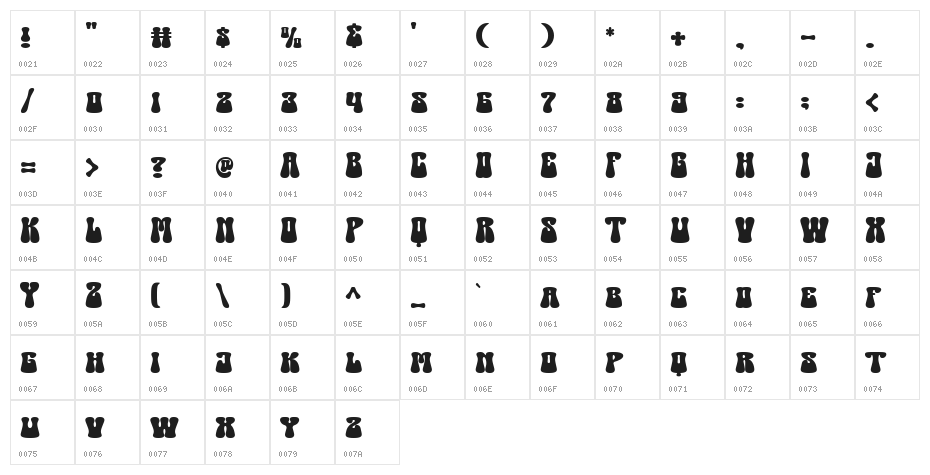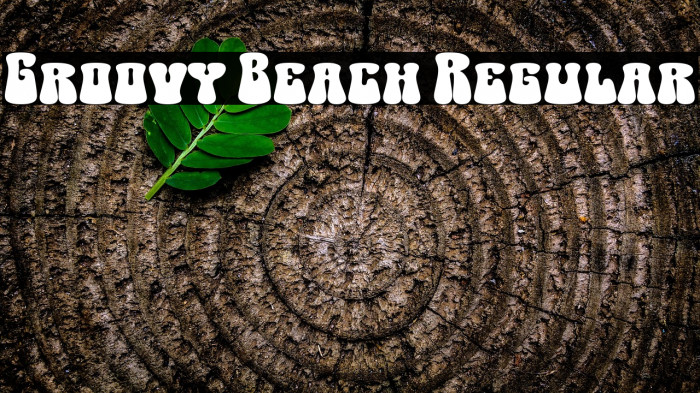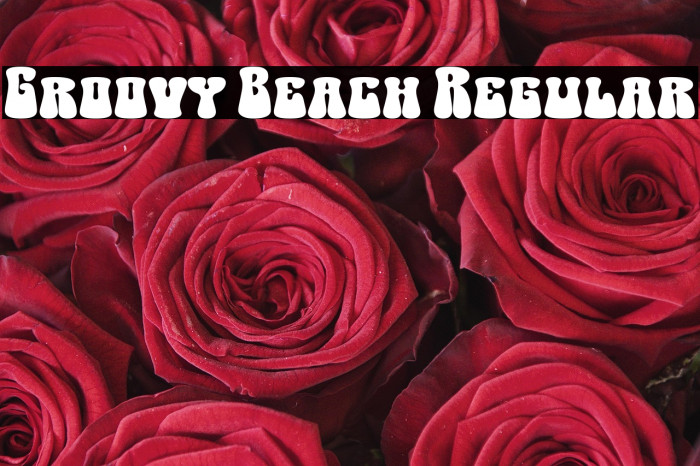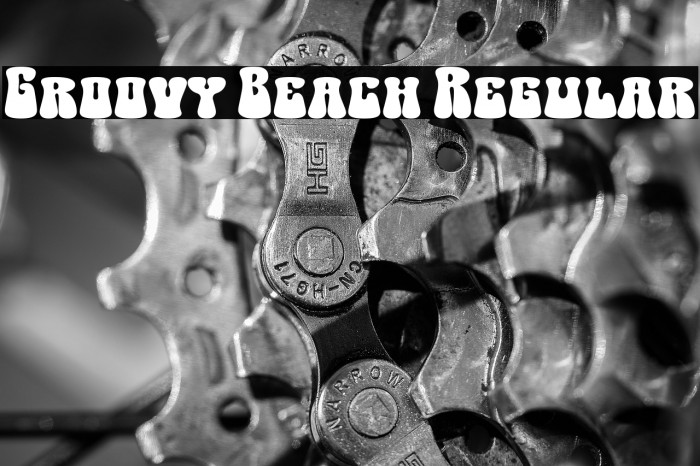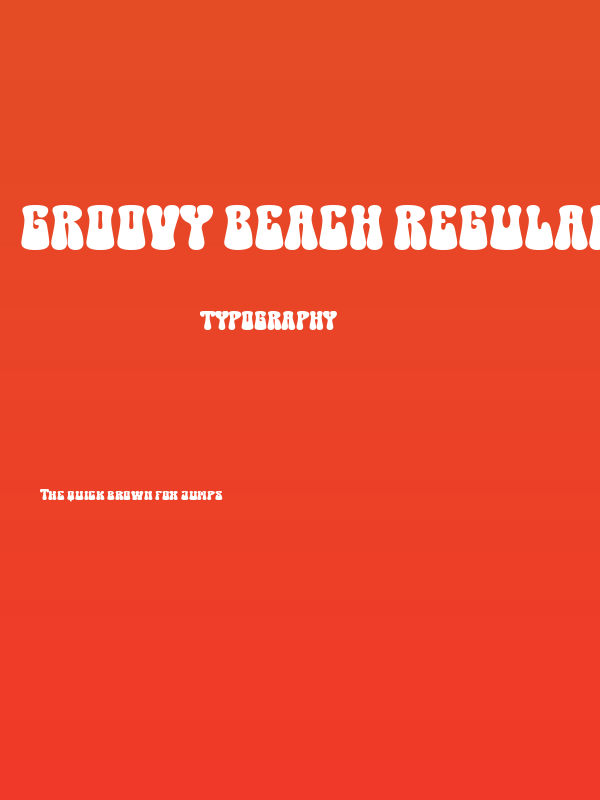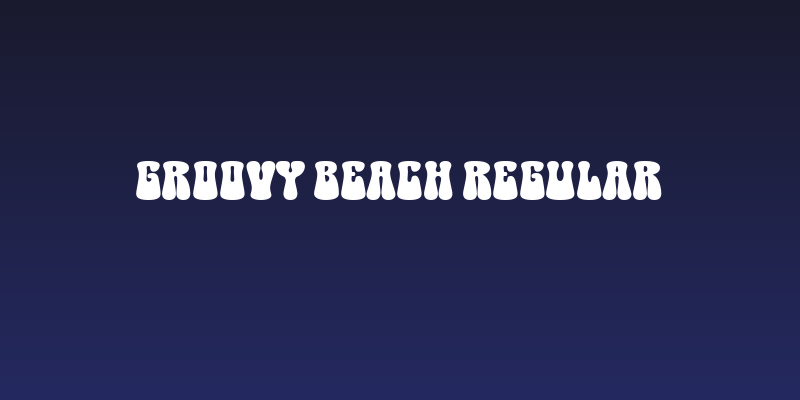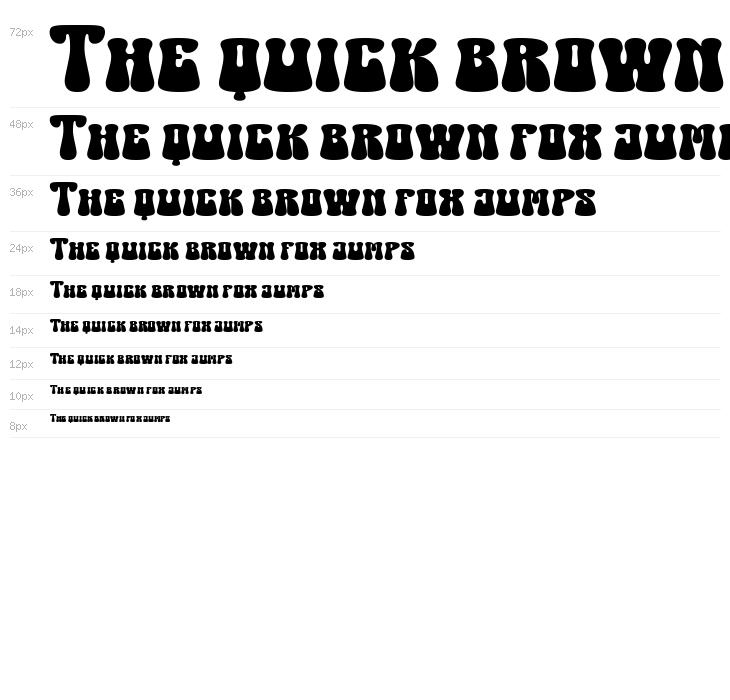
Groovy Beach Regular Font
Groovy Beach Regular Description
This font features a bold and playful design with a distinctly retro vibe. The characters are thick and rounded, giving them a bubbly appearance reminiscent of the 1960s and 70s psychedelic and beach culture. The letters have a consistent weight throughout, with minimal contrast in stroke thickness, contributing to a cohesive and uniform look. The overall style is decorative and eye-catching, making it ideal for projects that require a fun and lively aesthetic. The character spacing is normal, ensuring readability while maintaining its unique style.
| Overall Style | Vintage |
| Proposed Projects | Ideal for posters, album covers, event flyers, and branding that seeks a vintage or playful theme. |